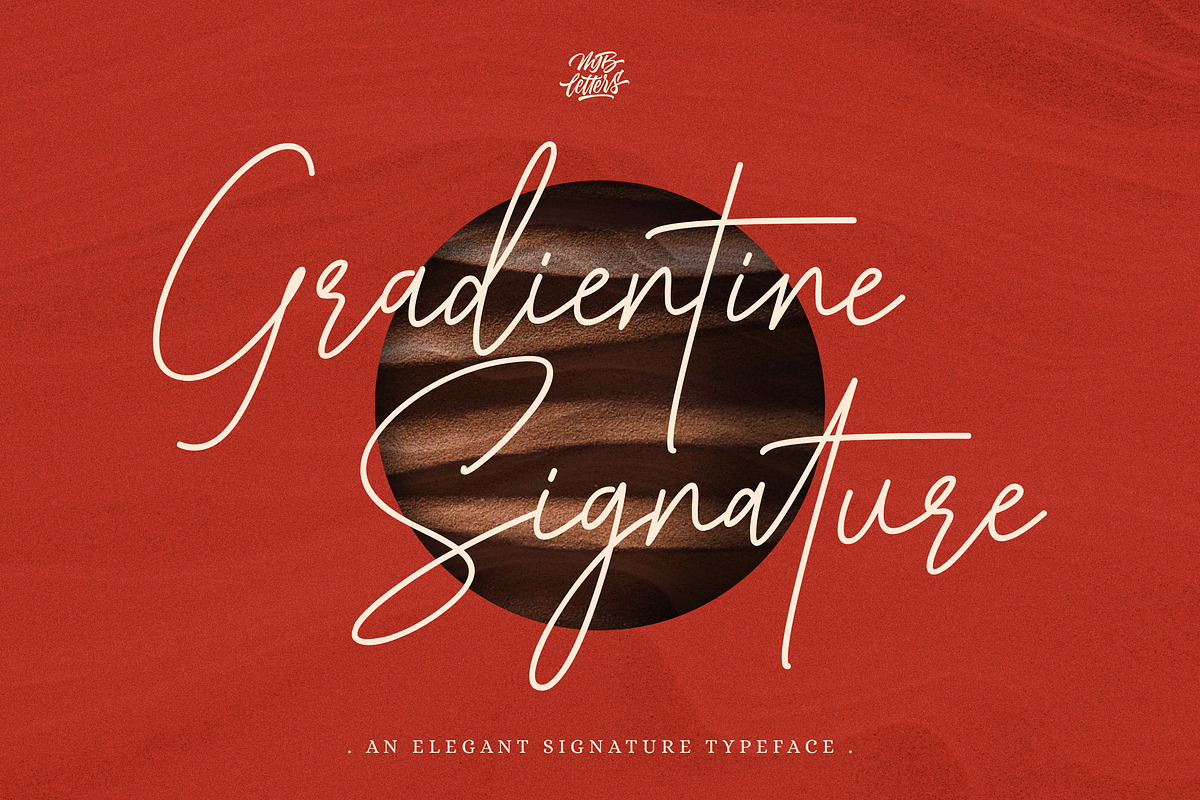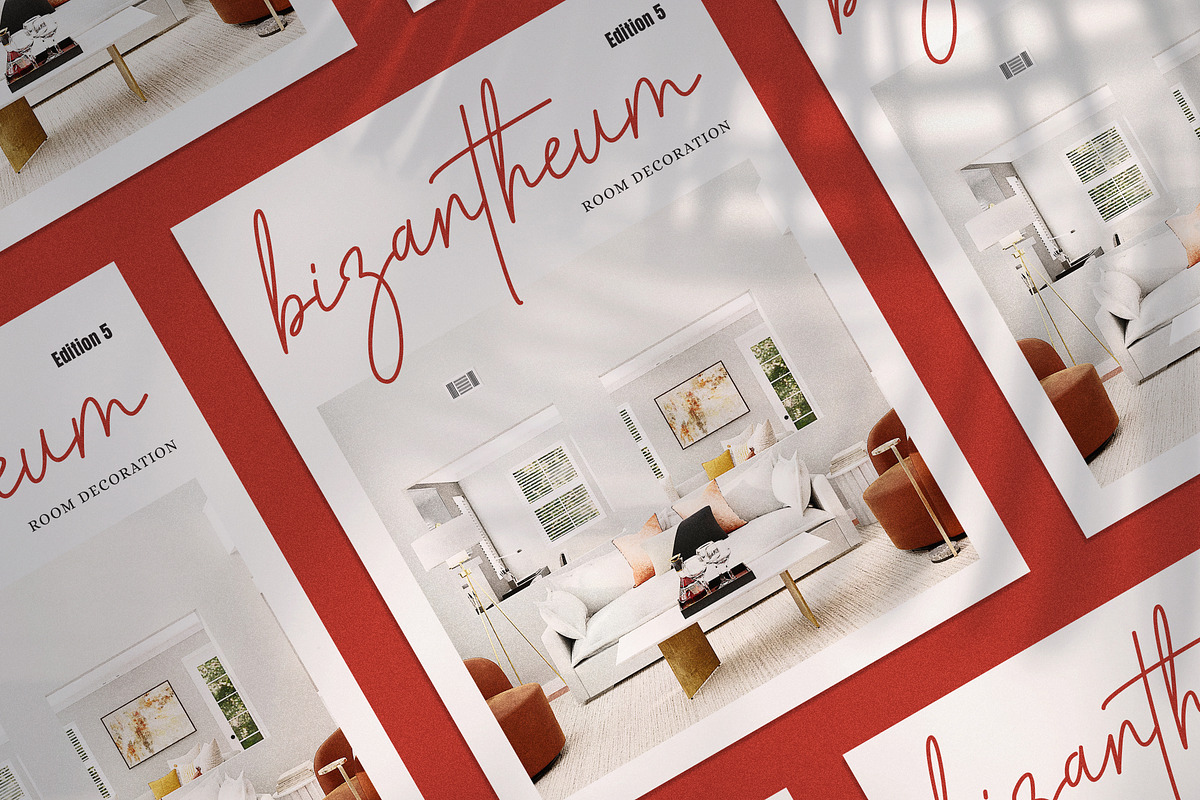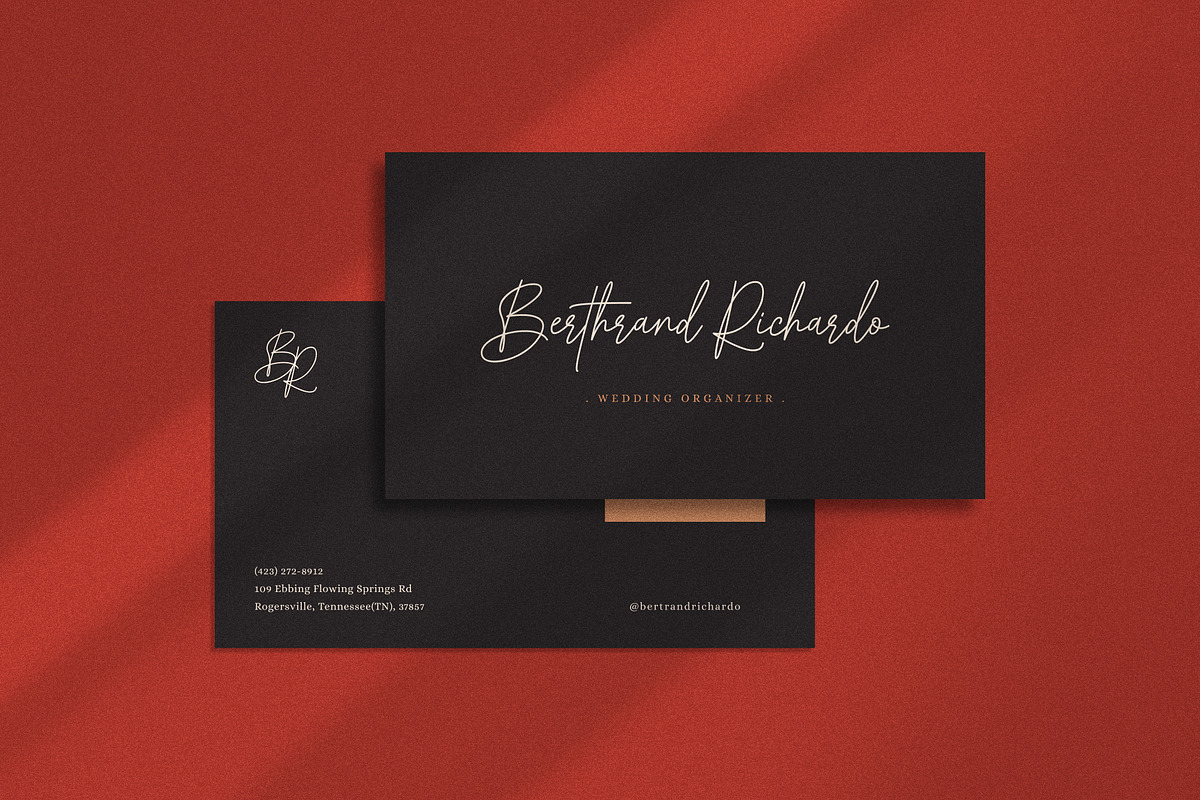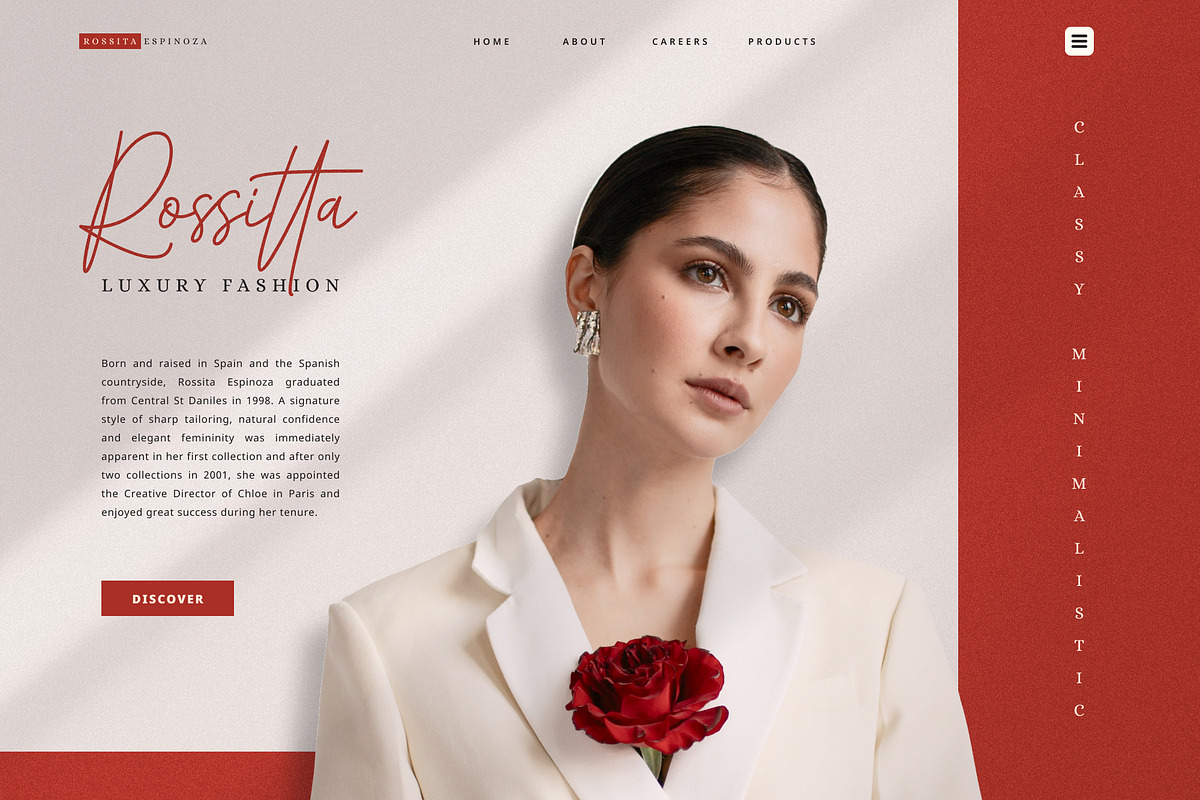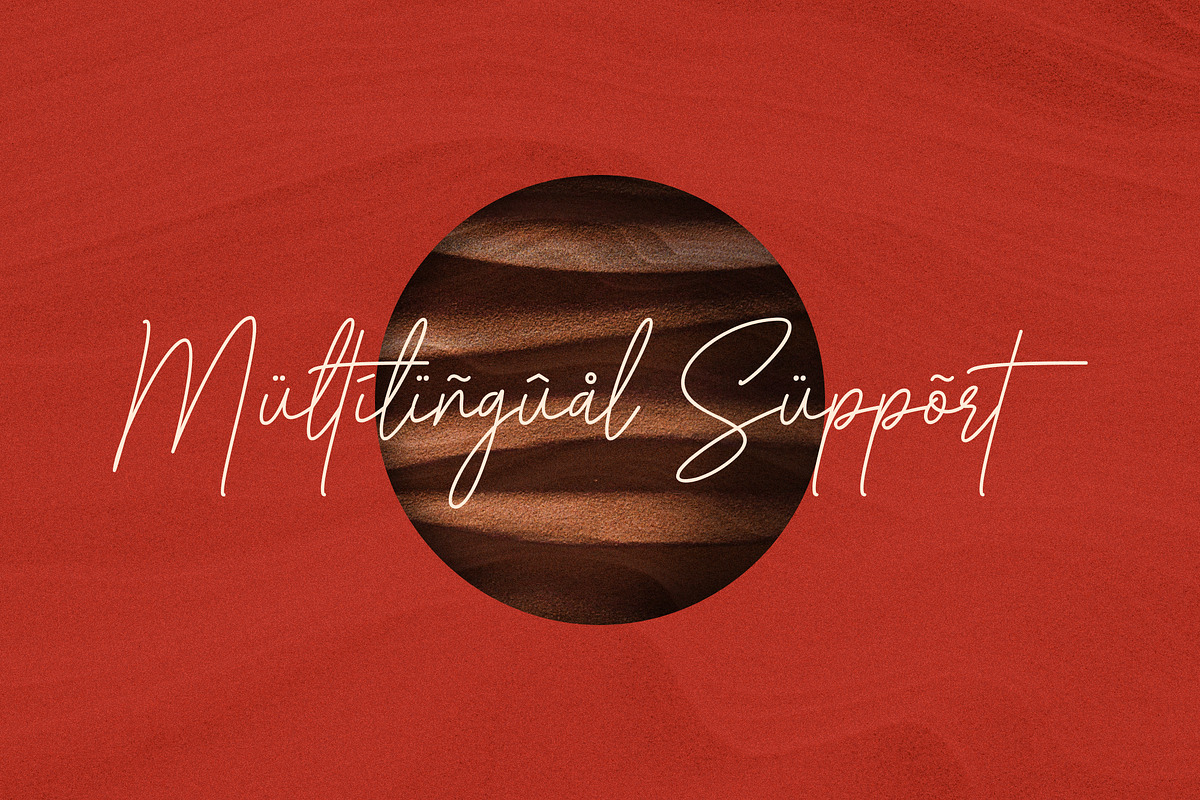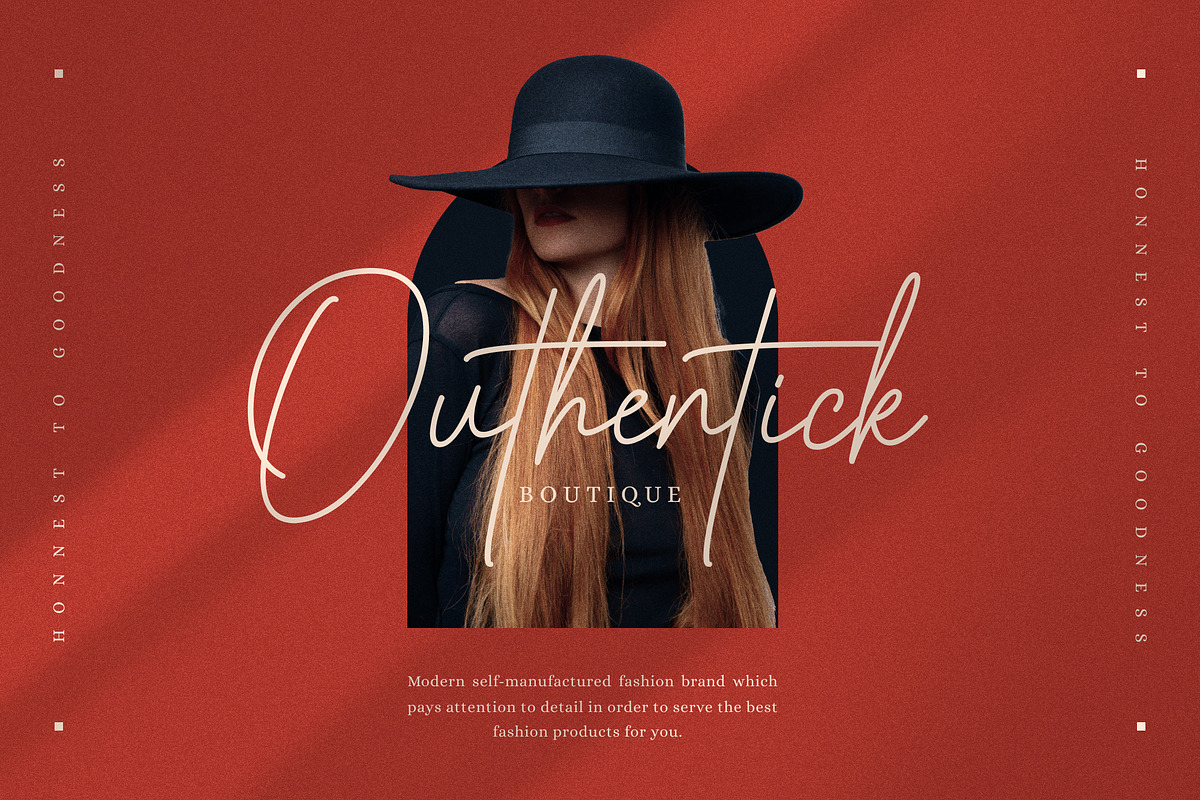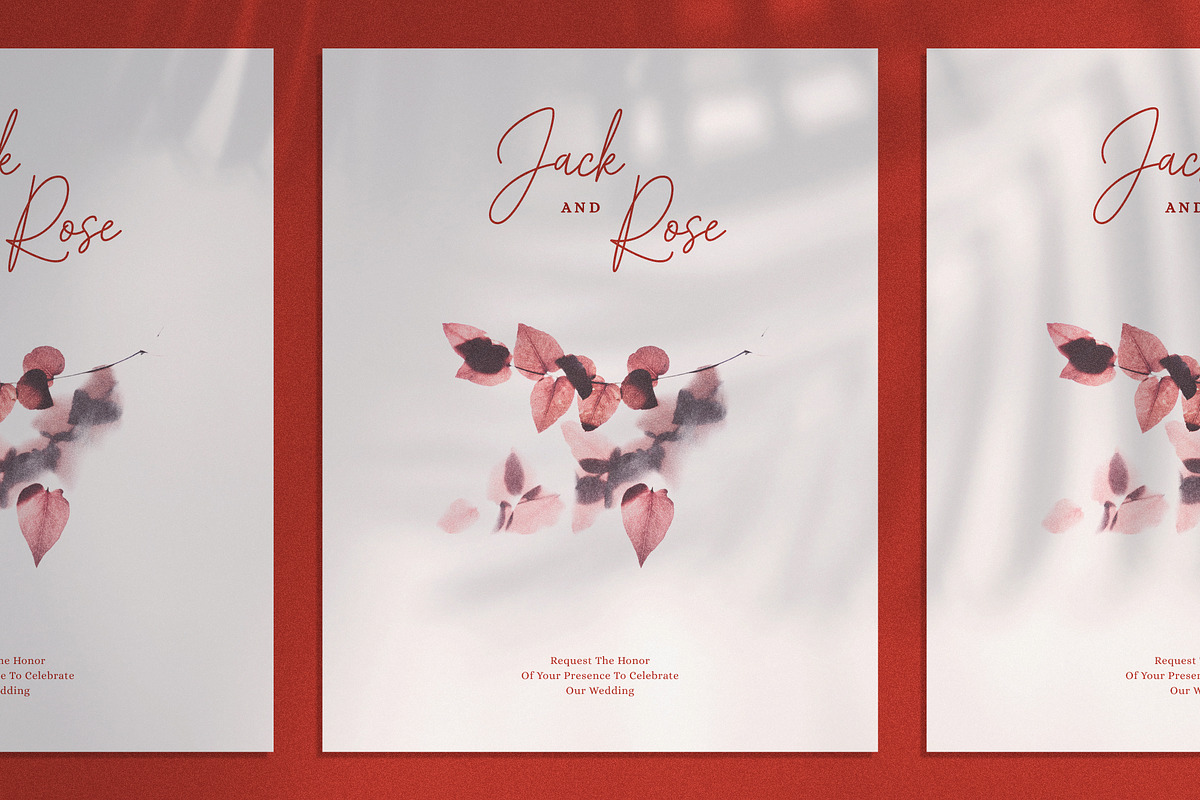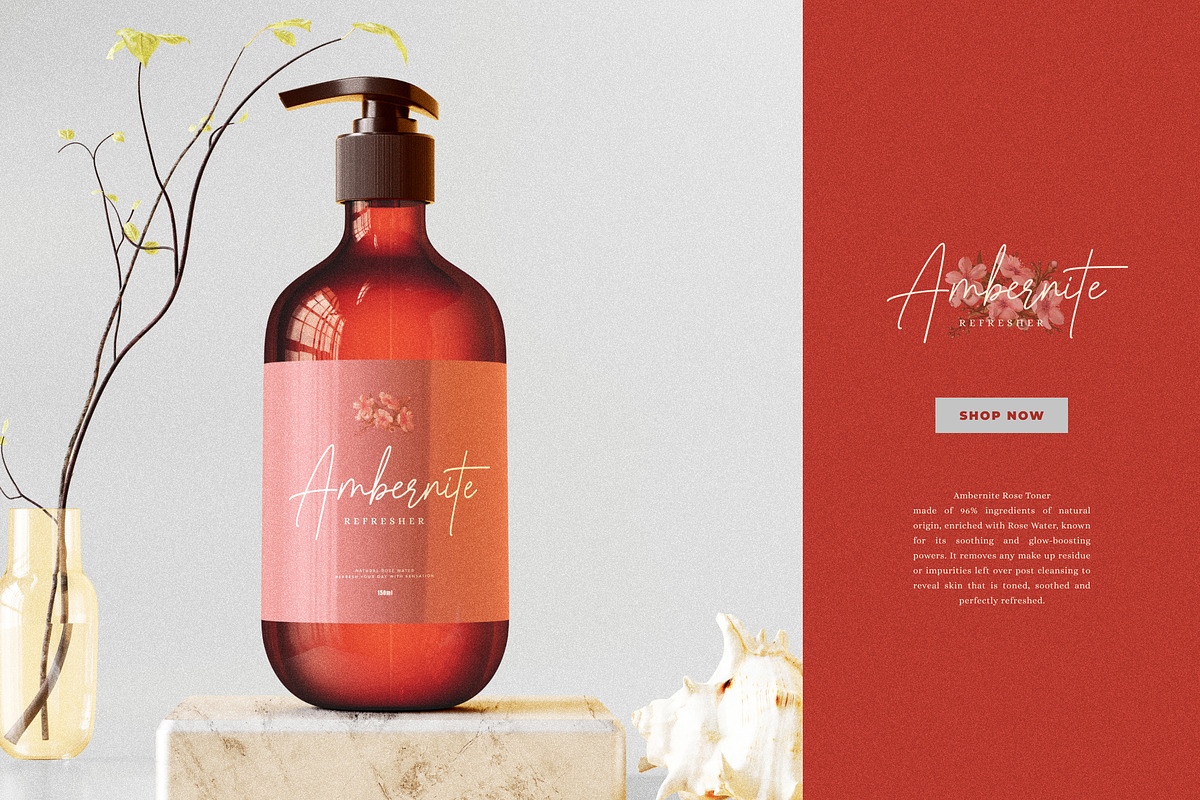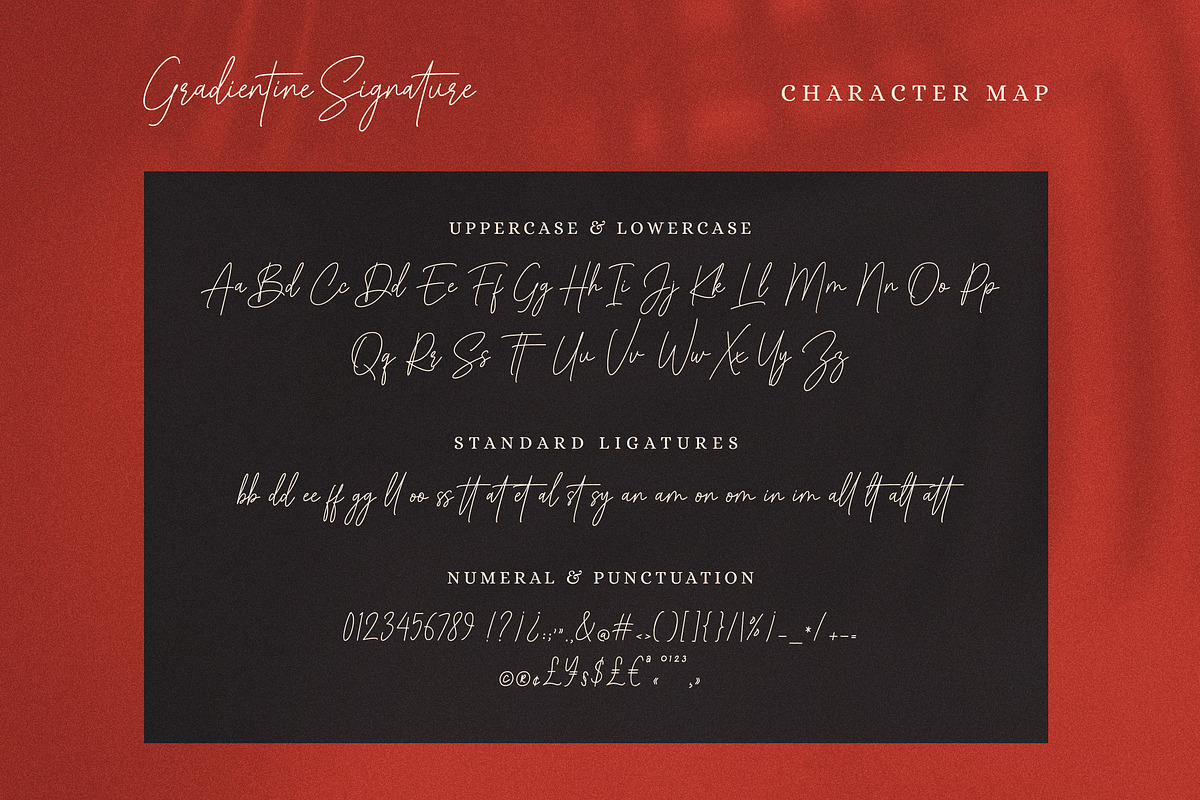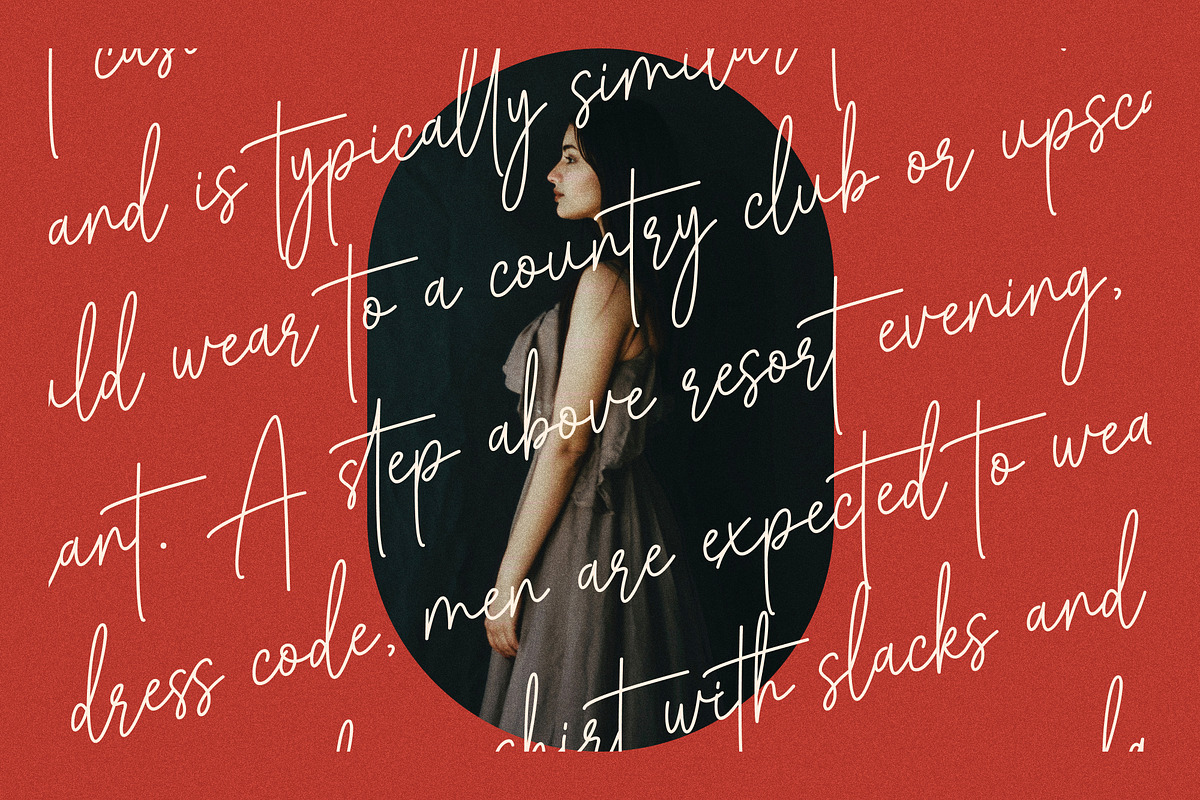
Gradientine Signature
Gradientine Signature is a perfect cursive font that has a modern and authentic look, this font has a strong and unique character in both lowercase and uppercase, this font is perfect for branding, canva, silhouette, template, procreate, watermark, signature, logo design, packaging design, business card, fashion design, t-shirt design, wedding design and more.